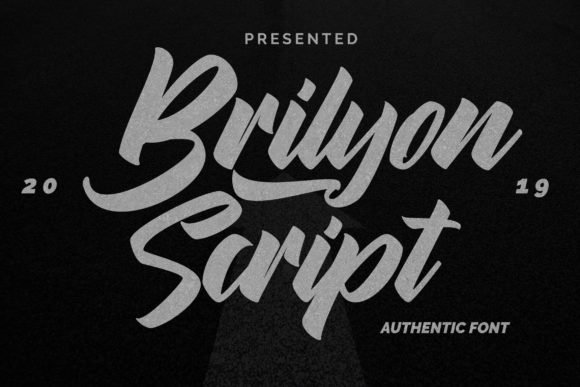
Unlock the Authentic Charm of Handwritten Design
Do you remember the feeling of scribbling down your ideas in a notebook, the scribbles and doodles that brought your thoughts to life? For many creatives, there’s something special about handwritten notes that just can’t be replicated with digital tools. That’s why we’re excited to introduce you to the Brylion Script Font, a sweet and cool handwritten font that captures the essence of authentic, handwritten design.
Whether you’re a designer, artist, or writer, the Brylion Script Font is a valuable addition to your toolkit. With its incredibly authentic vibe, this font brings a touch of personality to your projects, making it perfect for branding, advertising, and editorial design. By incorporating the Brylion Script Font into your work, you can add a unique touch that sets you apart from the crowd.
Brylion Script Font Key Features
- Font Type: Script Font, ideal for creative and elegant designs
- Unique Characteristics: Handwritten style, swashes, and flourishes, adding a touch of personality and elegance to designs
Brylion Script Font Review
As a designer, I’ve had the chance to work with various fonts, and my experience with Brylion Script has been quite interesting. Here’s what I think.
- Unique Handwritten Feel: Brylion Script offers a distinctive handwritten look that can add a touch of elegance to any design.
- Excellent for Titles and Headings: This font is perfect for creating eye-catching titles and headings due to its bold, flowing lines.
- Works Well for Creative Projects: Brylion Script is ideal for creative projects that require a touch of personality and whimsy.
- Difficult to Read in Small Sizes: Due to its unique style, Brylion Script can be challenging to read when used in small sizes or in dense blocks of text.
- Limited Character Set: The font may not have a comprehensive character set, which can limit its usability in certain languages or for specific designs.
- Not Suitable for Body Text: While Brylion Script is great for titles and headings, it’s not ideal for body text due to its informal, handwritten style.
Brylion Script is a great font for designers who want to add a touch of personality and creativity to their projects. While it has some limitations, its unique style and versatility make it a valuable addition to any design toolkit.
Tips: Use Brylion Script Font for titles and headings to add a touch of elegance and sophistication to your designs.
Tips: Use Brylion Script Font for logos, invitations, and other creative projects that require a unique and stylish touch.
Tips: Use Brylion Script Font for presentations, reports, and other documents that require a professional and elegant look.
Brylion Script Font is perfect for:
Wedding and event decorations
Editorial and publishing projects
Any project that requires a touch of elegance and sophistication.